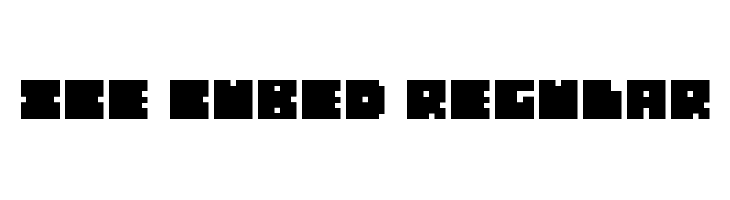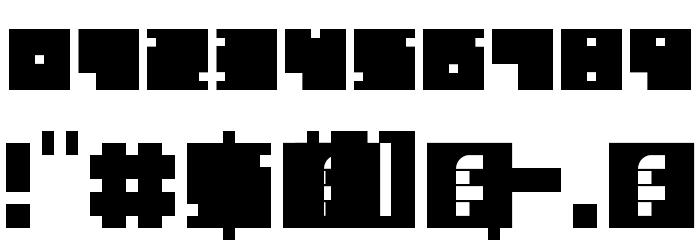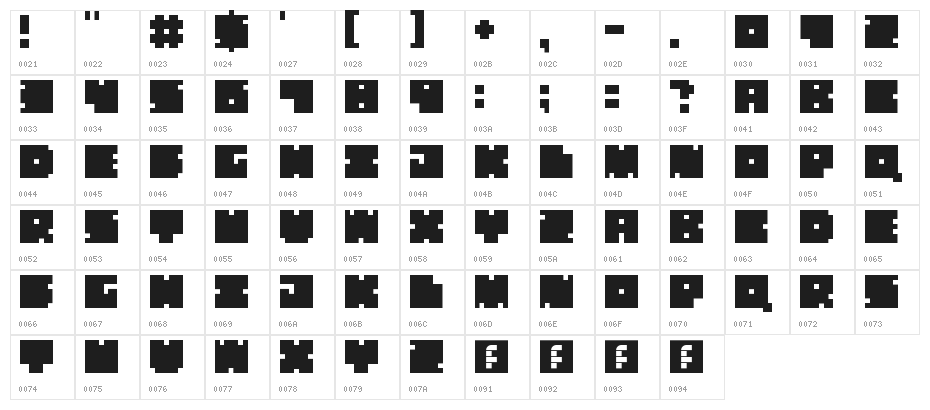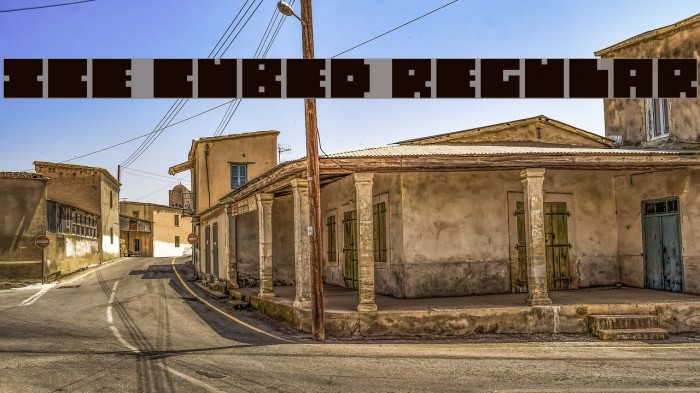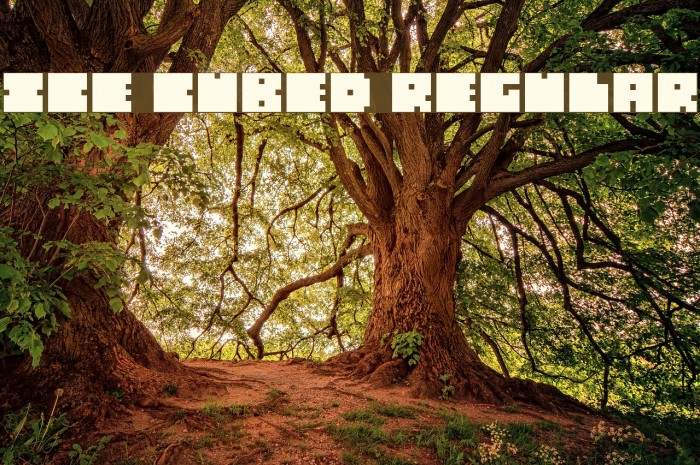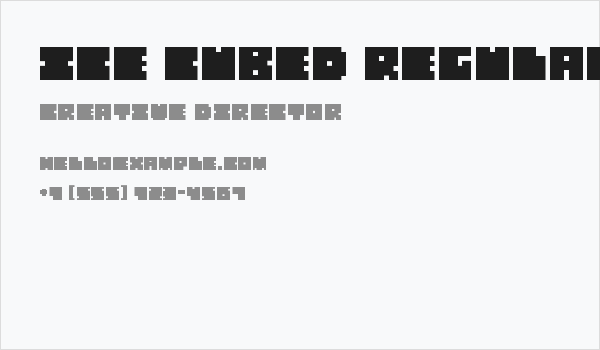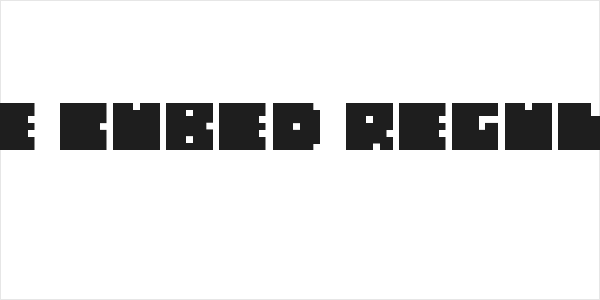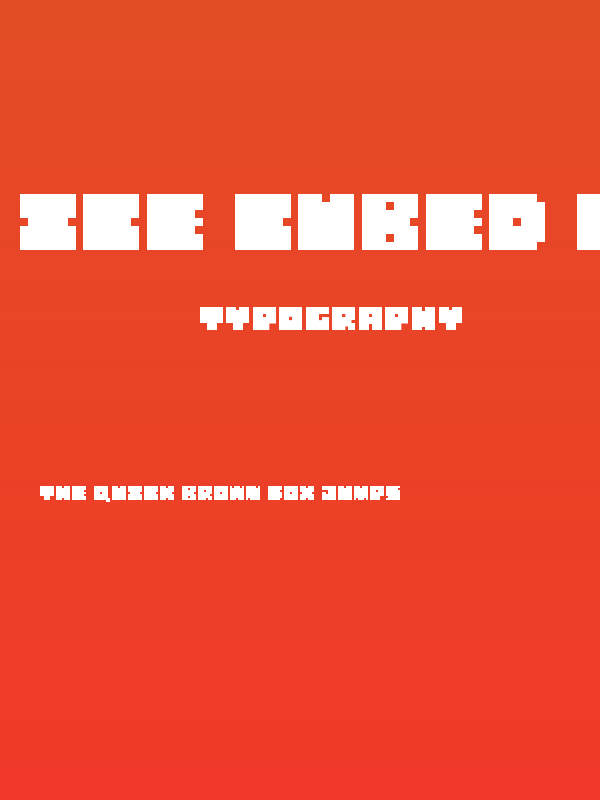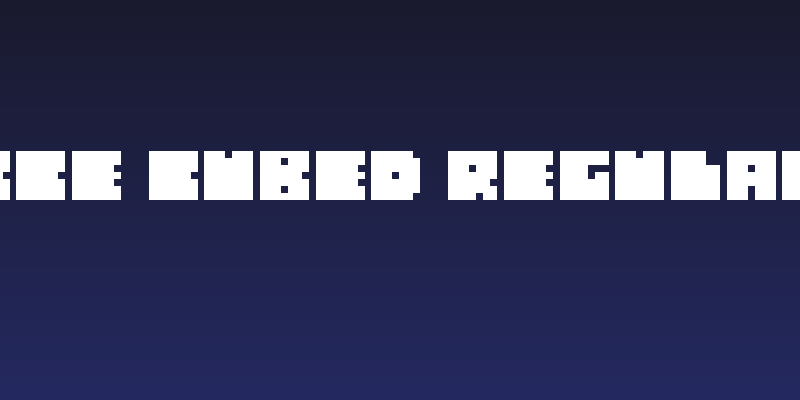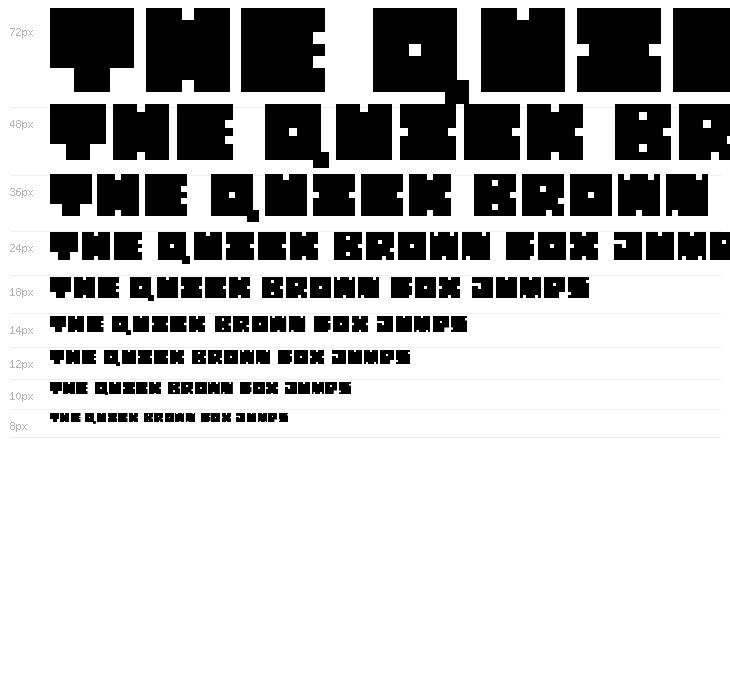
ICE CUBED Regular Font
ICE CUBED Regular Description
This font features a bold, geometric design with a blocky, pixelated appearance. Each character is constructed with sharp, angular edges, giving it a distinctly digital and modern feel. The uppercase and lowercase letters share a uniform height, contributing to a cohesive and structured look. The numerals and special characters maintain the same bold, square style, ensuring consistency across all glyphs. This font's unique style is reminiscent of retro video game graphics, making it ideal for projects that require a nostalgic or tech-inspired aesthetic.
| Overall Style | Modern, Retro |
| Proposed Projects | Ideal for video game graphics, tech-themed posters, digital art, and retro-inspired branding. |